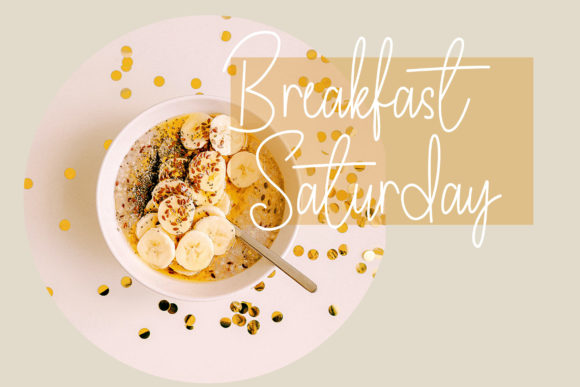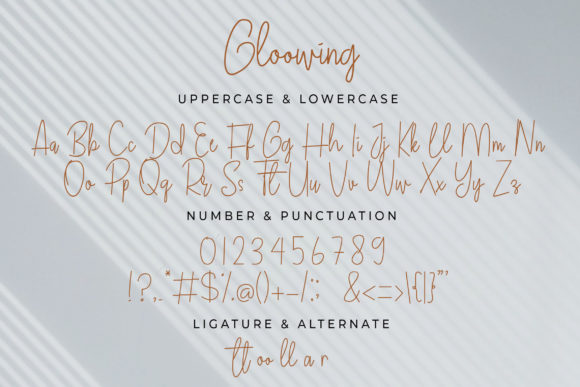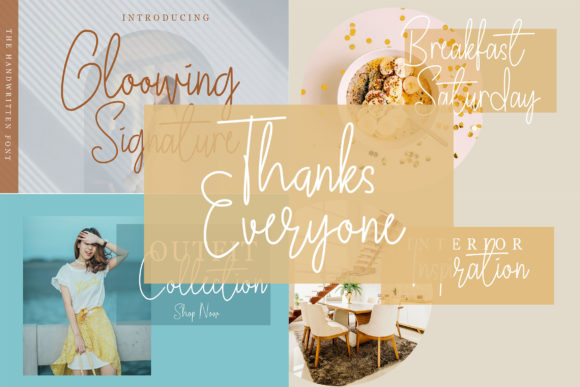
Introduction to Gloowing Signature Font Font
Fonts play a crucial role in design, and the Gloowing Signature Font font is a typeface that brings both character and versatility to any project. Whether you’re working on a branding project, a website, or a print design, the Gloowing Signature Font font offers a unique style that can elevate your work.
Gloowing Signature is a chic, refined script font that emanates sophistication and elegance.
Its stylish alternates and ligatures make this font the perfect match for any project .
Key Features of Gloowing Signature Font Font
Why Choose Gloowing Signature Font Font?
The Gloowing Signature Font font is more than just a typeface – it’s a design tool that helps you communicate your message with style and clarity. Its unique character set and versatile design make it suitable for a wide range of applications, from elegant invitations to bold headlines.
With its carefully crafted letterforms and balanced proportions, the Gloowing Signature Font font ensures readability and visual appeal across all mediums.
What makes Gloowing Signature Font font special?
The Gloowing Signature Font font stands out with its unique design, exceptional readability, and versatility across various design applications.